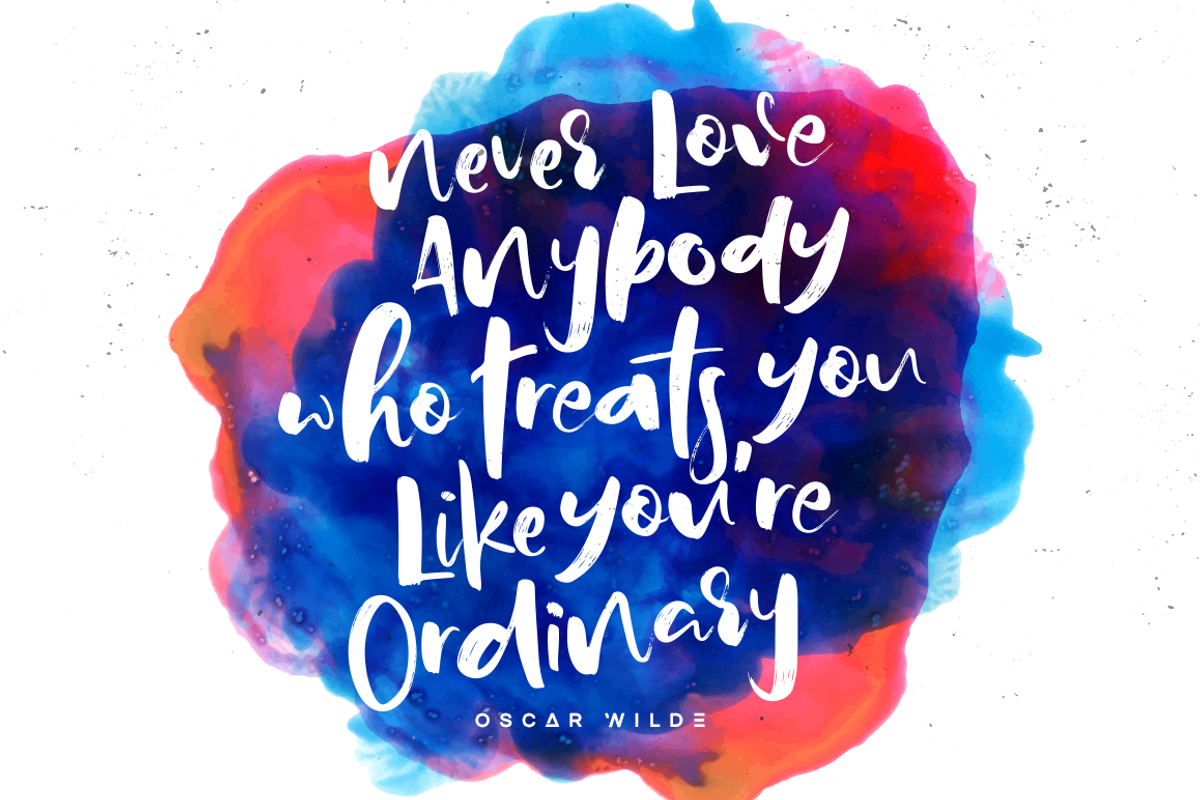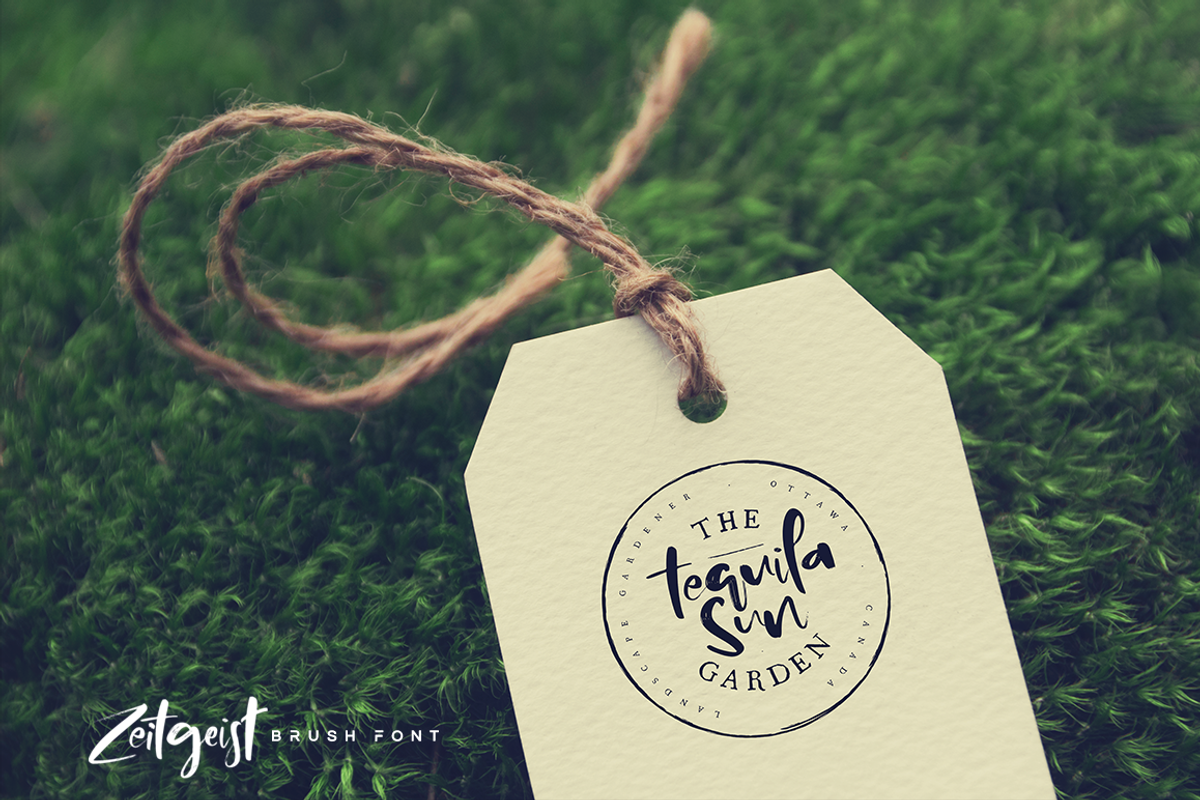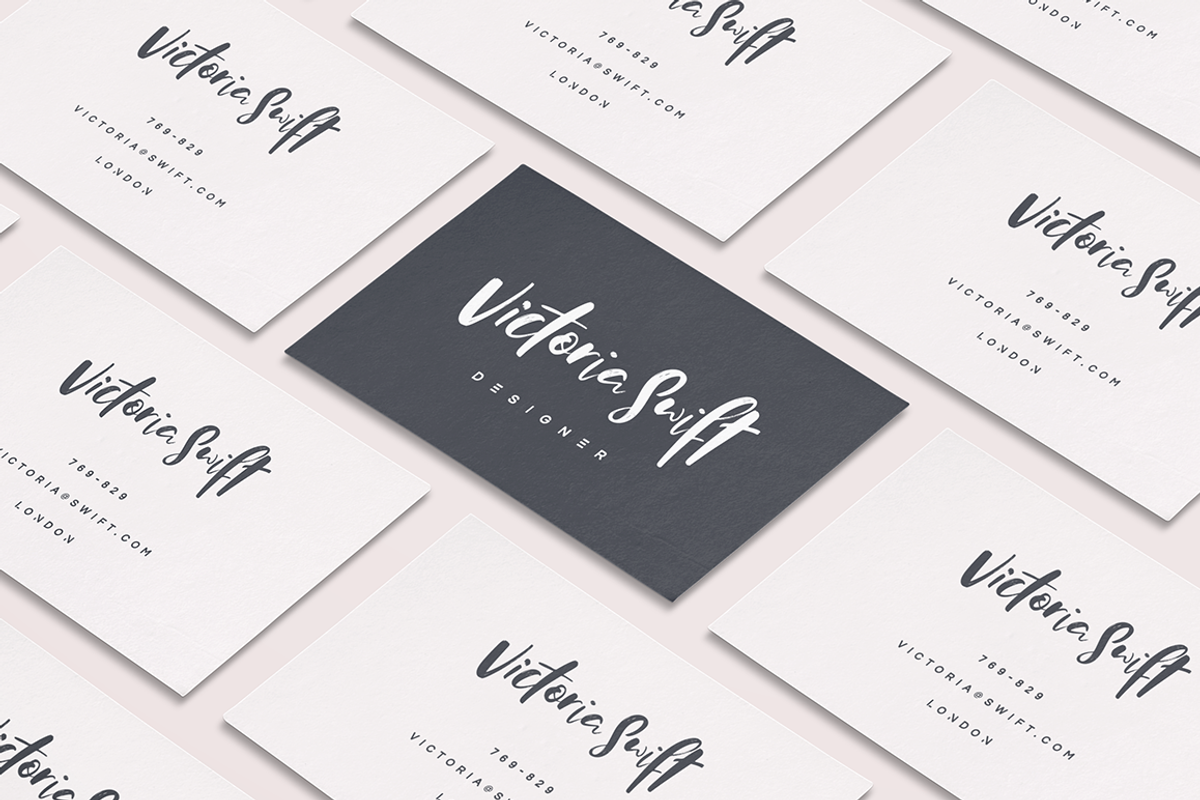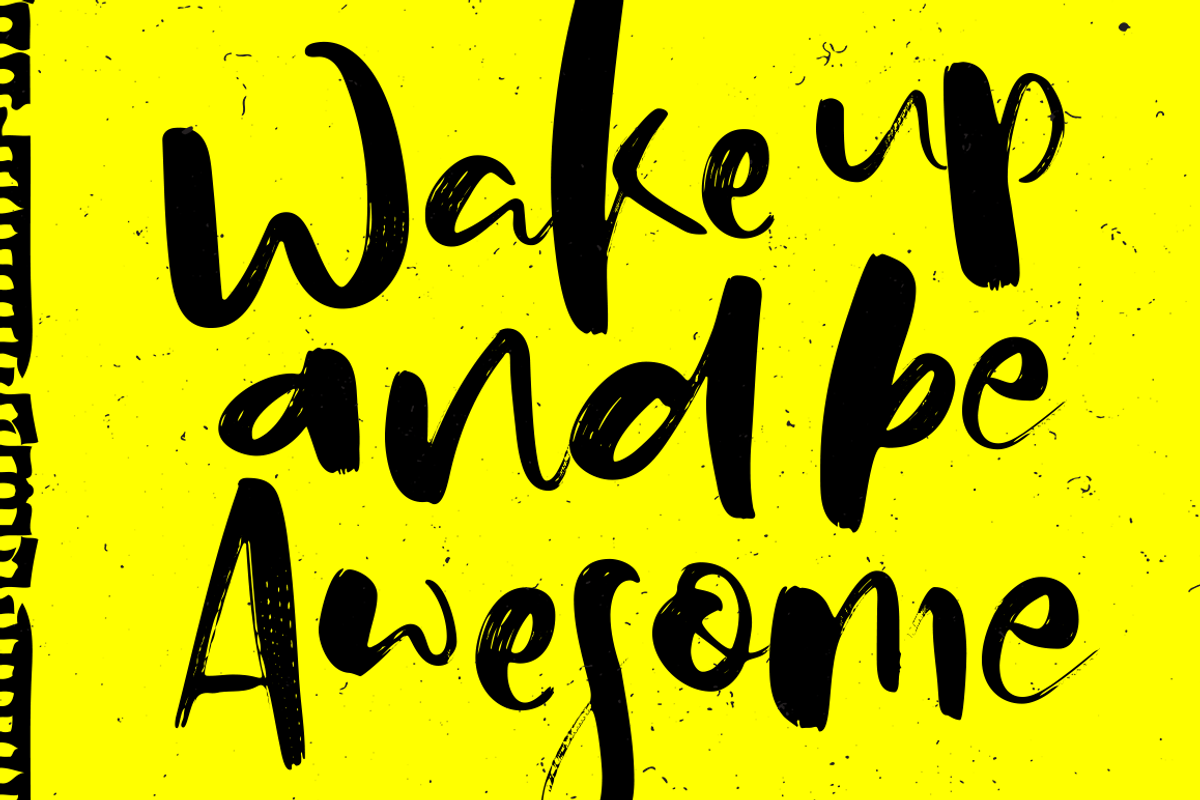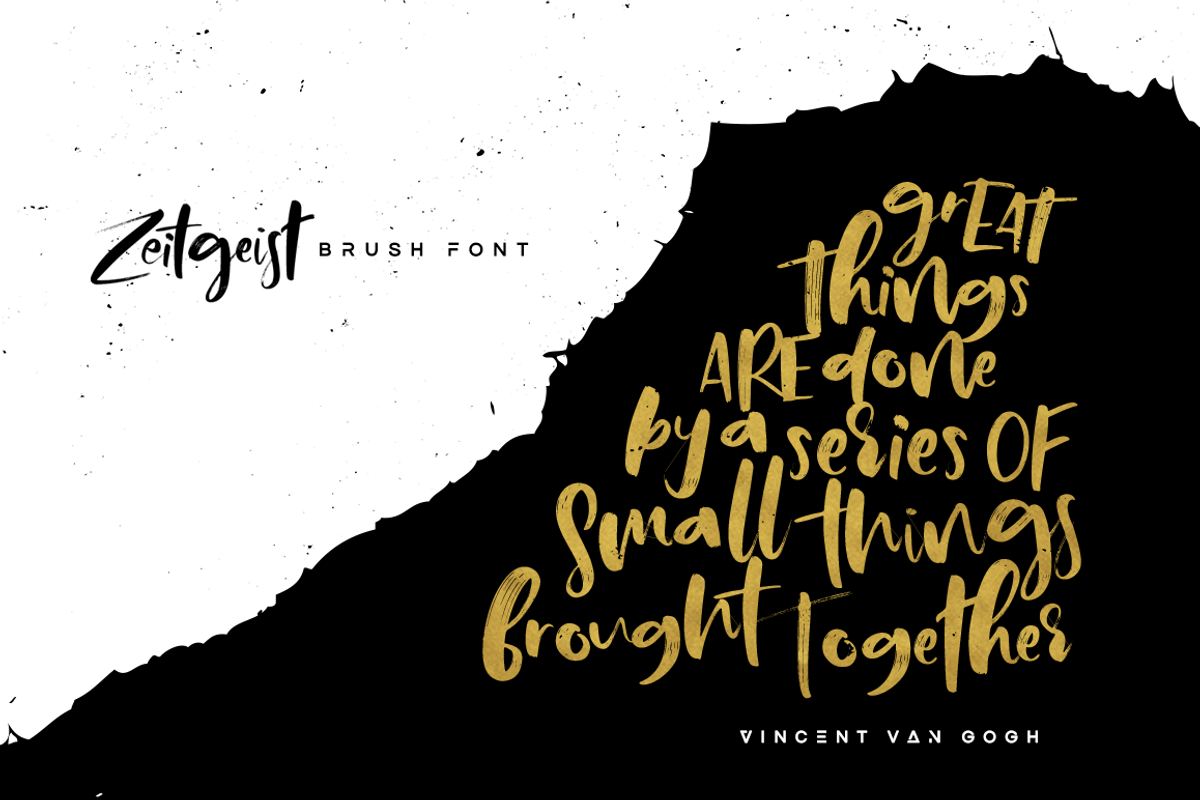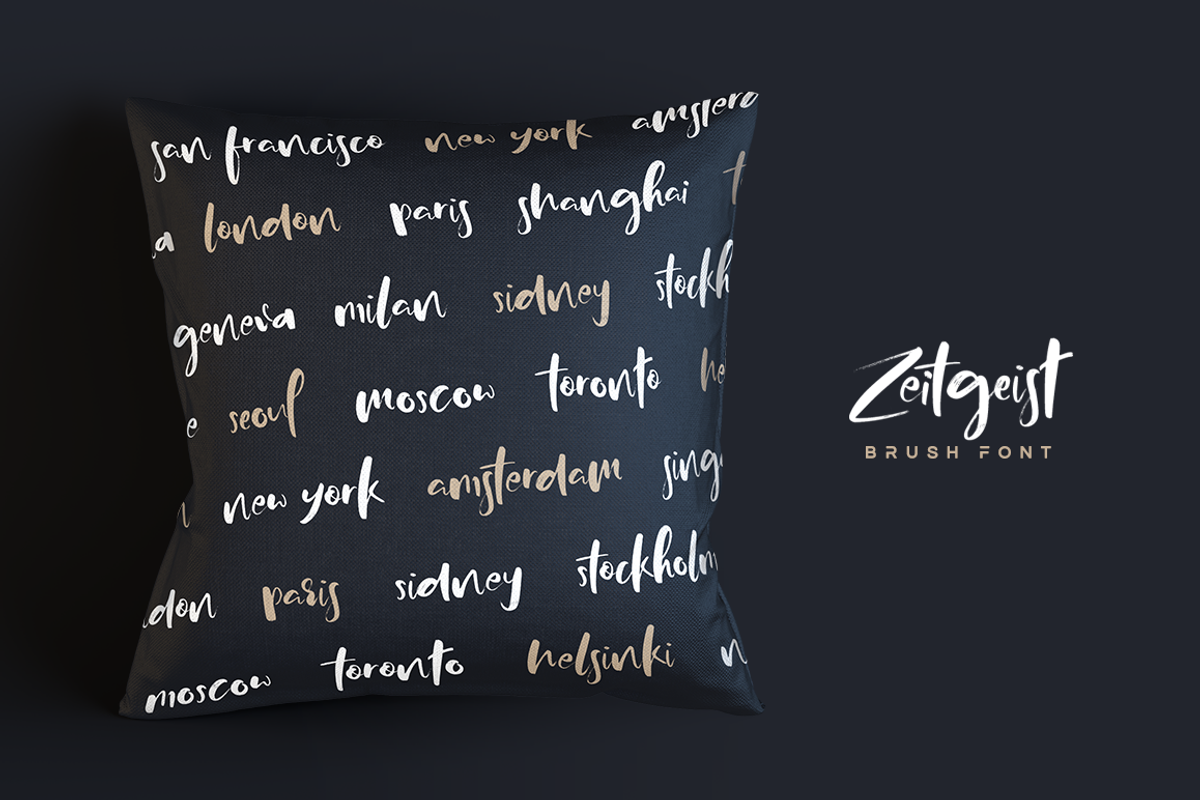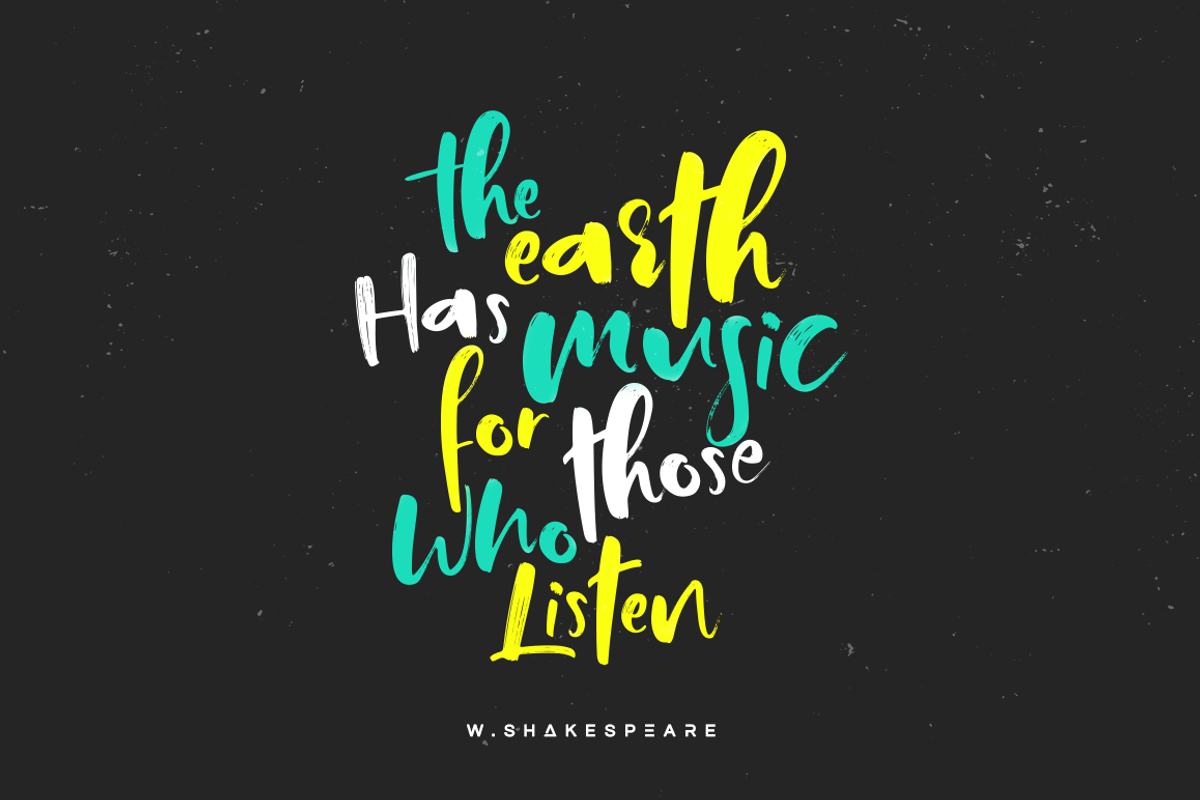
Zeitgeist Font
Zeitgeist Font by Hindia Studio is a font selected for branding, posters, packaging, typography.
Why Zeitgeist Font is worth a look
Zeitgeist Font by Hindia Studio fits naturally into Branding, posters, packaging, typography.